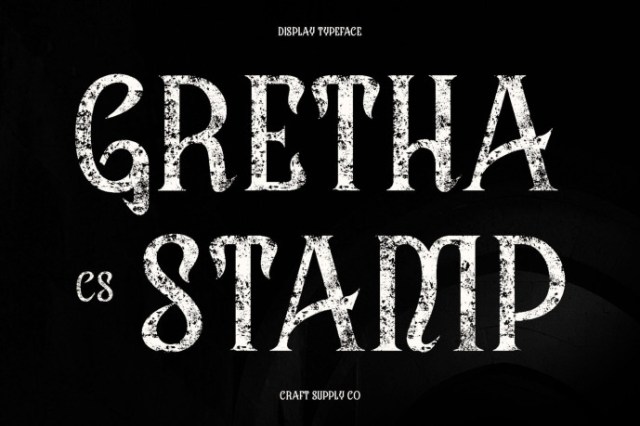
Gretha Stamp Font
Designer: craftsupplyco
Gretha Stamp Font with Stamped Texture This is an elegant Tuscan display font that draws inspiration from uncial-style curves, blending classical heritage with artisanal flair. Its refined structure communicates tradition and authority, while the stamped texture softens its form, adding depth and handmade character. The result is a font that feels both historic and artistic, making it stand out in any design.
Historic Curves with Artistic Personality The uncial-inspired letterforms give a timeless appeal rooted in cultural tradition. These curves echo the beauty of ancient manuscripts while adapting them into a versatile and functional display style. The combination of historical influence and modern usability allows this font to serve as both decorative.
Stamped Effect for Vintage Depth Its stamped texture adds visual richness, creating a tactile impression that mimics hand-pressed type. This quality not only enhances the font’s vintage look but also infuses it with a sense of authenticity. It provides a distinctive handcrafted feel, making it ideal for projects that seek warmth originality.
Perfect for Branding and Classic Displays Whether applied to vintage branding, book titles, or poster designs, elevates text with its unique blend of tradition and artistry. Its ability to balance elegance with a stamped, textured finish ensures that it resonates across modern and classical projects alike, making it a versatile choice for designers who value heritage style.